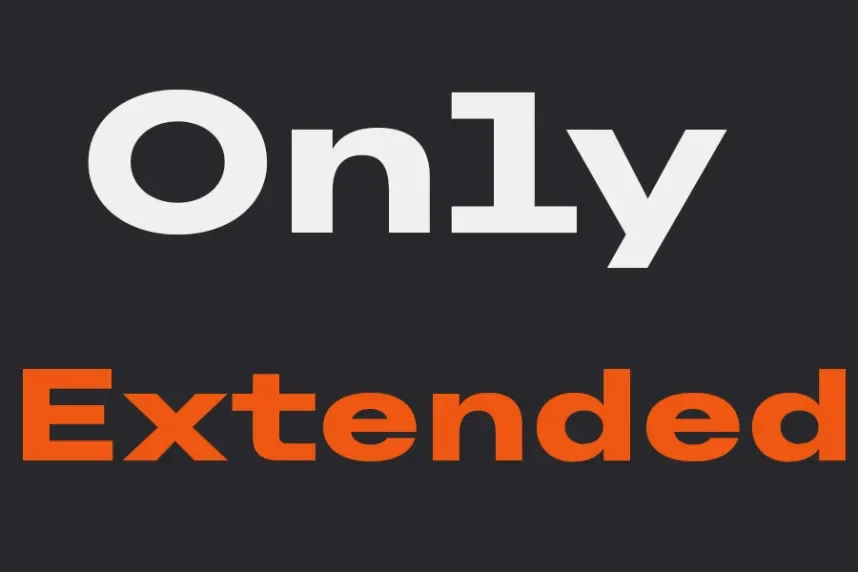
Only Extended Font Family helps designers create strong visual hierarchy using wide letterforms without sacrificing readability. Extended fonts often feel crowded or uneven in web and UI design.
Only Extended is a sans-serif font family with wide proportions, clean strokes, and minimal contrast. The extended width supports bold headlines while maintaining consistent spacing and alignment.